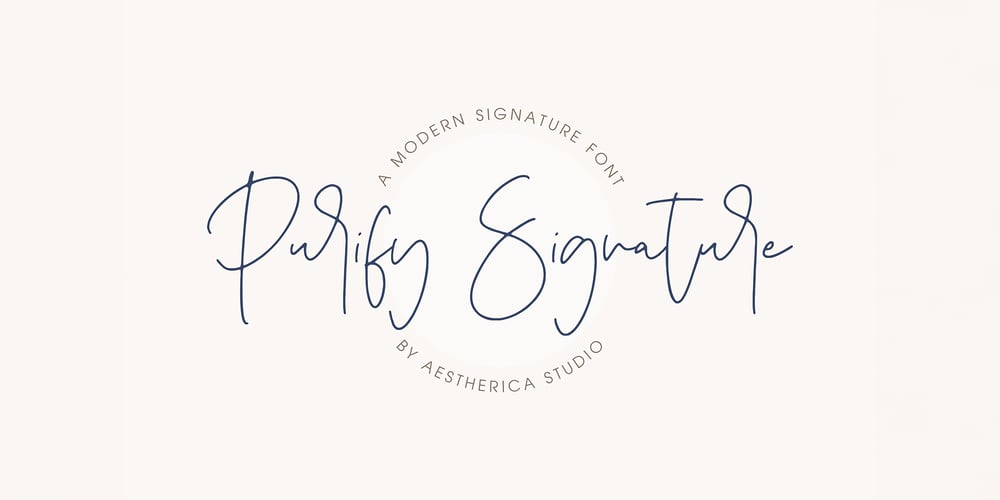
Purify Signature
Purify Signature font
Purify Signature Font Family was designed by Muhammad Fathurrohman and published by Aestherica Studio. Purify Signature contains 1 styles and family package options. Purify Signature is a modern and simple handwritten script font. Contemporary and fashionable, this font will look great for a wide variety of projects.